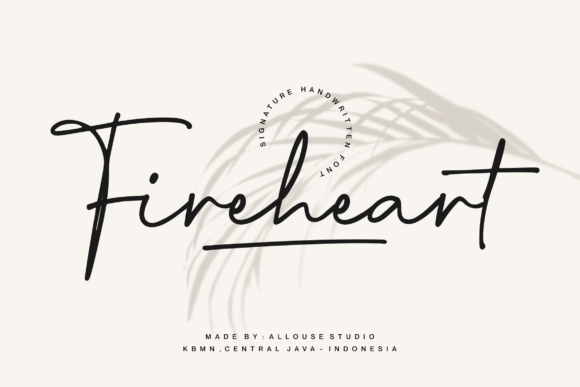
Behold Fireheart, a captivating script font with a mischievous charm and a playful spirit. Its characters, adorned with enchanting flourishes, are crafted to dance gracefully across your business cards, invitations, and heartfelt notes. The Fireheart font family, with its striking personality and undeniable allure, is the perfect choice for any designer seeking to evoke genuine emotions and make a lasting impression.
Experience the transformative power of Fireheart as it elevates your designs to new heights of creativity. Its intricate details and fluid lines will add a touch of elegance and sophistication to any project, leaving your audience spellbound. Unleash your imagination and explore the endless possibilities of this extraordinary font family, allowing your words to ignite hearts and leave an indelible mark.
With Fireheart's PUA encoding, you can effortlessly access a world of glyphs and swashes, empowering you to express yourself with boundless creativity. Say goodbye to limitations and embrace the freedom to craft unique and personalized designs that truly reflect your vision.
Don't settle for ordinary fonts that blend into the background. Choose Fireheart, a font that breaks free from the mundane and ignites a spark of inspiration. Allow your designs to shine with confidence and leave a lasting impression on all who encounter them.
Join the legion of creative professionals who have embraced the allure of Fireheart, transforming their designs into captivating works of art. Let your imagination run wild and create designs that resonate with your audience, leaving them captivated and eager for more.
Step into the enchanting world of Fireheart and discover the endless possibilities it holds. With its captivating charm and ability to evoke genuine emotions, this font family is the key to unlocking your creative potential. Unleash the magic of Fireheart today and let your designs speak volumes!